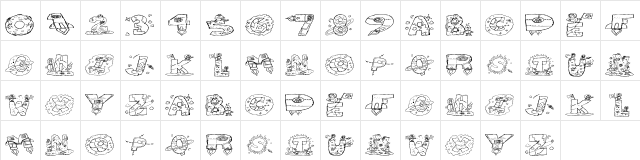
Space Attack Regular
Design Context for Space Attack Typeface
Space Attack is a composed and adaptable typeface that performs quietly and consistently across a wide range of design contexts.